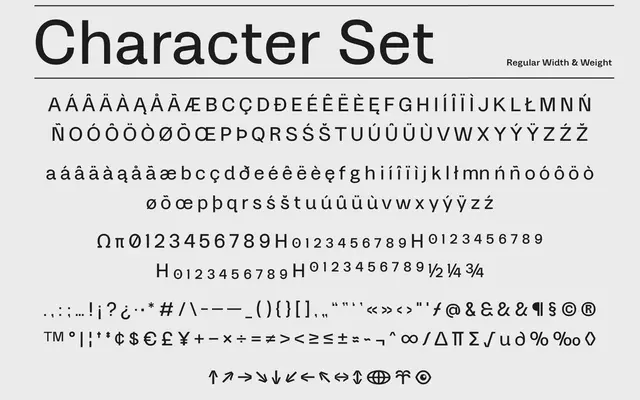
Honeychrome Variable
A variable sans spanning four widths and five weights, shifting from workmanlike utility at Regular to expressive personality at the Black and ExtraWide extremes.
Honeychrome covers 21 static styles across Regular, SemiWide, Wide and ExtraWide widths, each running from Regular to Black, all unified in a single variable font. The design carries a restrained tech character at its core weights but loosens noticeably in the heavier and wider settings, where letterforms gain more individual presence. Three stylistic sets for the ampersand, plus a full suite of figure styles and standard OpenType features, round out a practical workhorse with display ambitions.
Clean, structured letterforms with a tech-inflected character and geometric underpinning, softened by humanist touches particularly in the wider, heavier cuts.